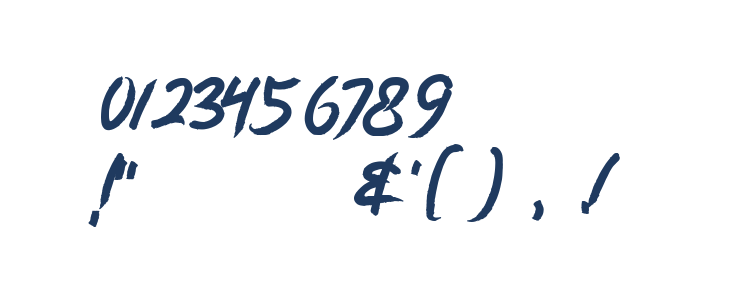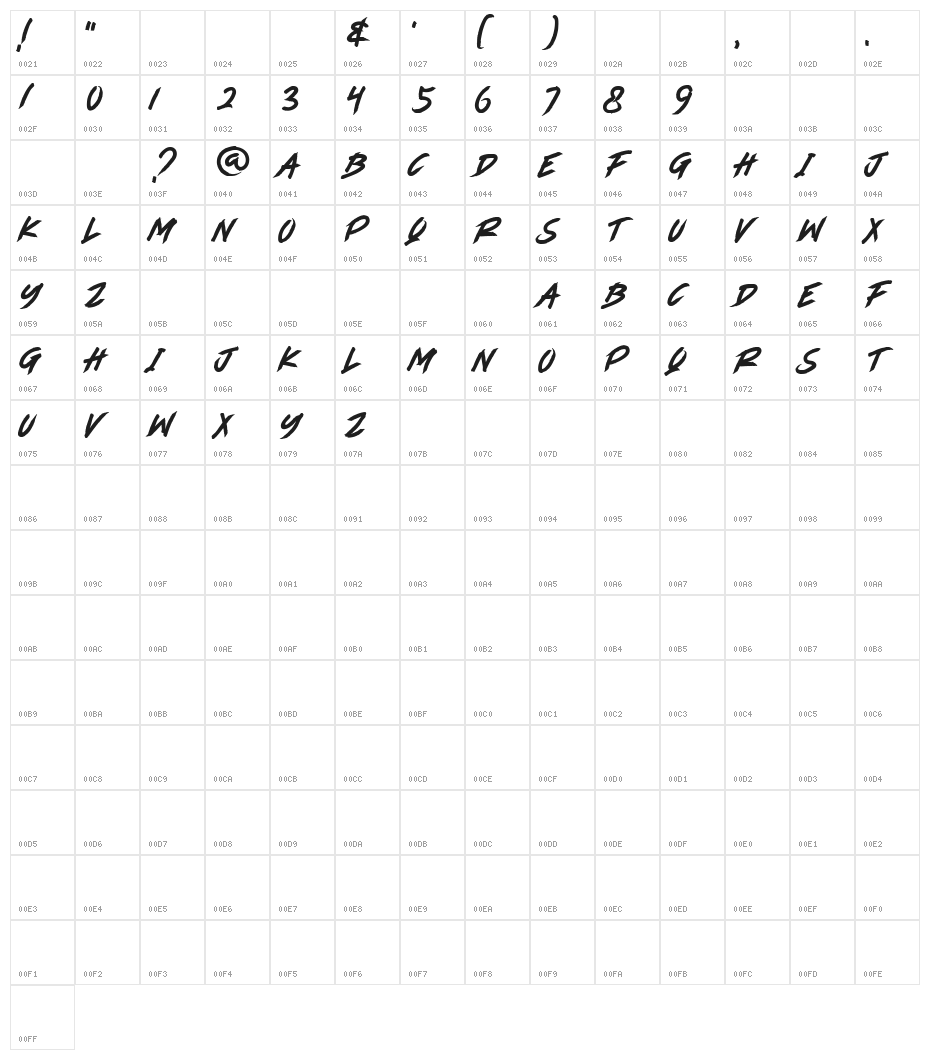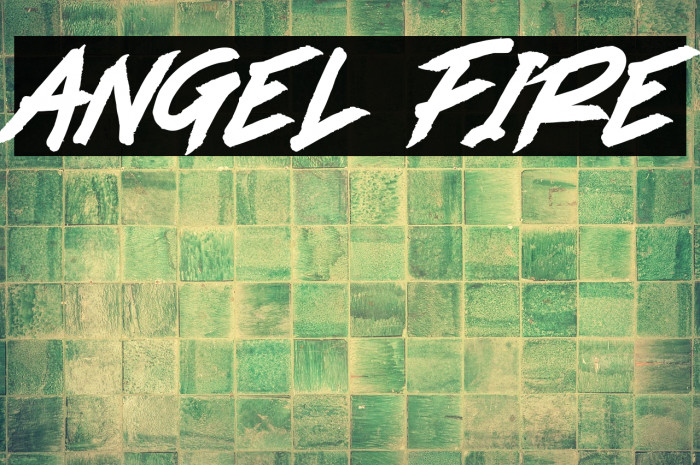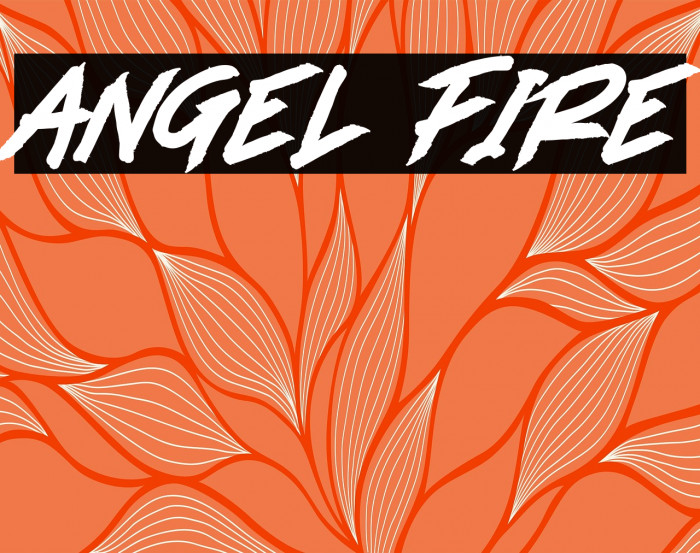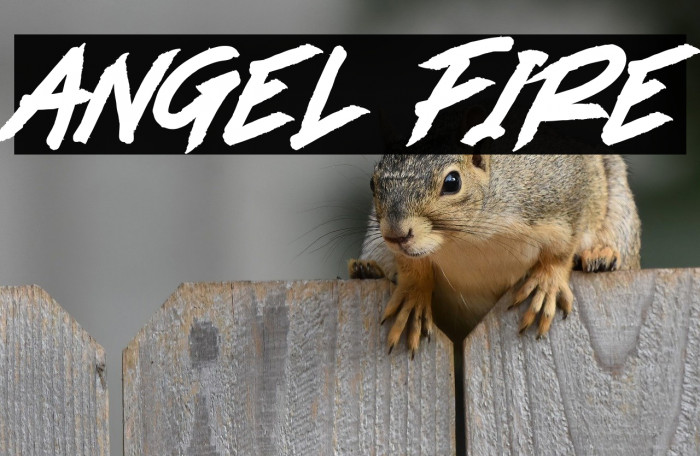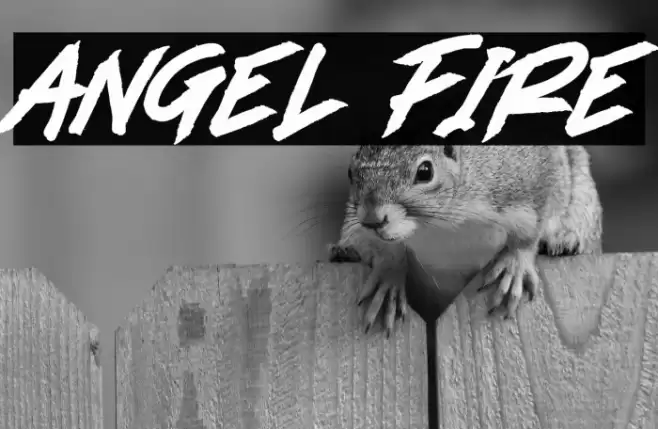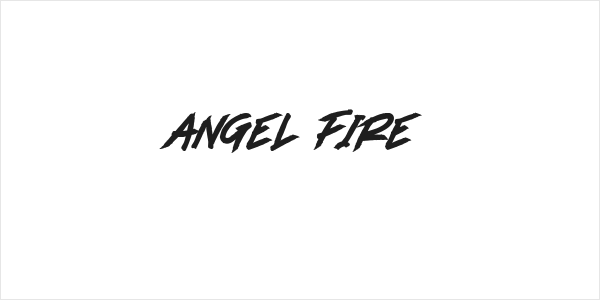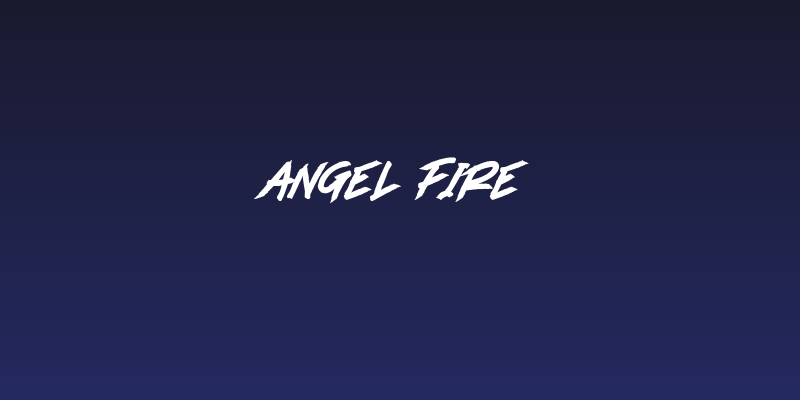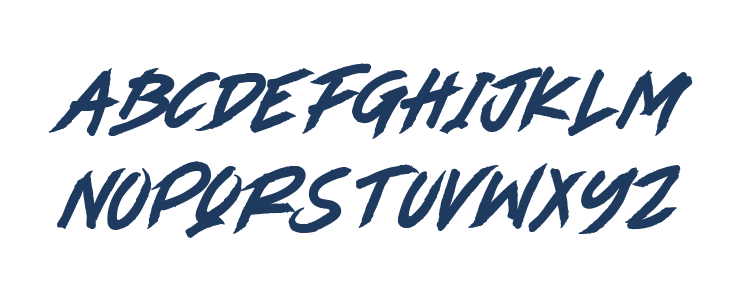
ANGEL FIRE Font
ANGEL FIRE Description
This font features a bold and dynamic script style, characterized by its thick, brush-like strokes that convey a sense of energy and movement. The uppercase and lowercase letters maintain a consistent flow, with each character exhibiting a slightly slanted orientation, enhancing its handwritten appeal. The numbers and special characters are crafted with the same boldness, ensuring uniformity across all elements. This font's expressive nature makes it suitable for projects that require a strong visual impact.
| Proposed Projects | Ideal for branding, posters, headlines, and any design that requires a bold, energetic script style. |